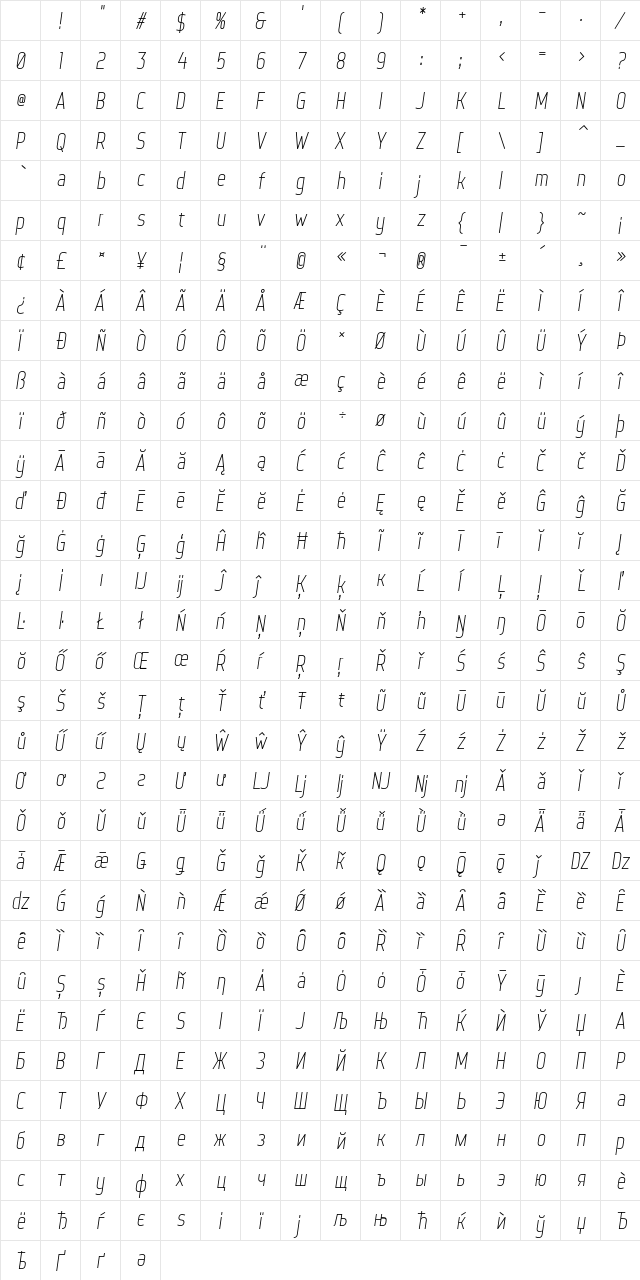
Complete Web Serveroff Italic glyph index. Displaying only characters natively supported by Web Serveroff Italic font.
Web Serveroff is a composed and adaptable typeface that performs quietly and consistently across a wide range of design contexts. The slanted form adds forward momentum and visual energy.